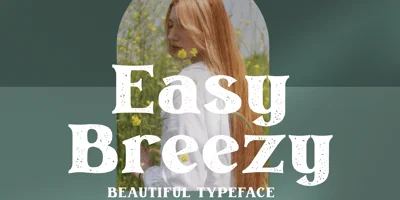
Easy Breezy Type Font
The Easy Breezy Type Font excels in various design applications including relaxed lifestyle branding, casual beach resort signage, breezy summer cafe communications, laid-back vacation marketing, effortless wellness center materials, casual outdoor event promotions, relaxed clothing brand identities, easy-going restaurant menus, breezy travel agency signage, and comfortable leisure projects that demand effortless charm and breezy sophistication.
What makes the Easy Breezy Type Font exciting is its effortless embodiment of relaxed living and carefree simplicity through letterforms that capture the essence of gentle breezes and the comfortable ease of stress-free lifestyle choices. This typeface demonstrates exceptional flow through carefully crafted characters that suggest the natural movement of ocean winds, the unhurried pace of vacation time, and the refreshing lightness that comes from embracing life's simple pleasures and finding joy in effortless moments. The font's breezy personality makes it perfect for wellness brands and vacation companies seeking to communicate relaxed authenticity, effortless charm, and the kind of easy-going appeal that creates memorable stress-free experiences through typography that literally flows with gentle breeze.
The Easy Breezy Type Font family typically includes flowing weight variations that enhance the relaxed aesthetic, featuring casual styling options and extended character sets optimized for leisure communications and lifestyle applications. These family options often include breeze-inspired alternates, casual symbols, and relaxed decorative elements that provide designers with comprehensive tools for creating authentically easy-going typography that celebrates comfortable living while maintaining contemporary design appeal and lifestyle credibility.
Lifestyle professionals and casual brand organizations consistently choose Easy Breezy Type Font for projects requiring typography that communicates relaxed authenticity and effortless sophistication. This typeface delivers exceptional performance in lifestyle marketing, casual branding, and relaxed communications where establishing comfort and creating breezy atmosphere is essential for stress-free engagement. The font's easy character makes it particularly effective for vacation and wellness applications. Download Easy Breezy Type Font today to access this refreshingly relaxed typeface that transforms casual communications with its breezy elegance and effortless sophistication, creating compelling lifestyle experiences that celebrate the magnificent simplicity of easy living while maintaining the comfortable charm that defines authentic relaxed culture and stress-free excellence.